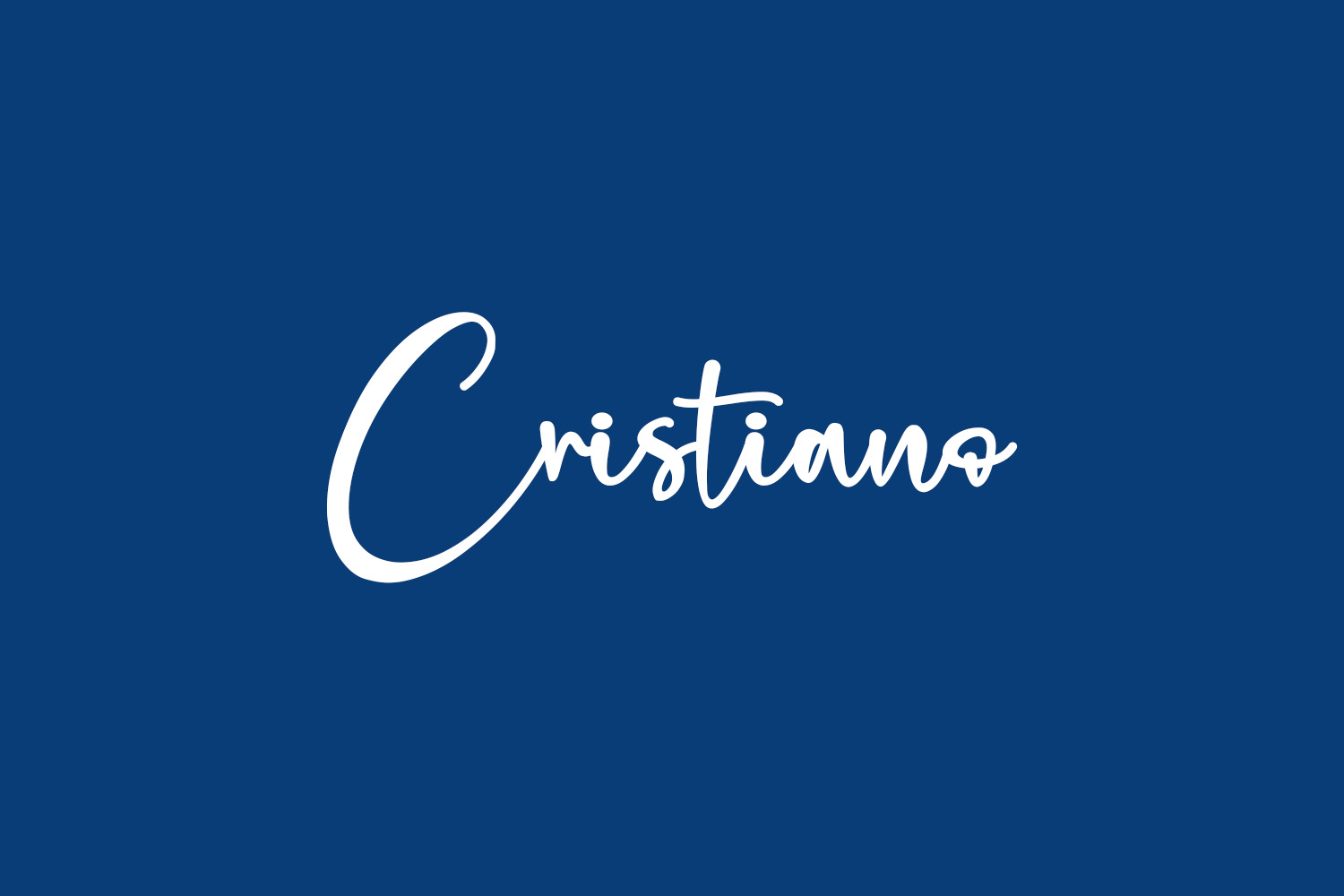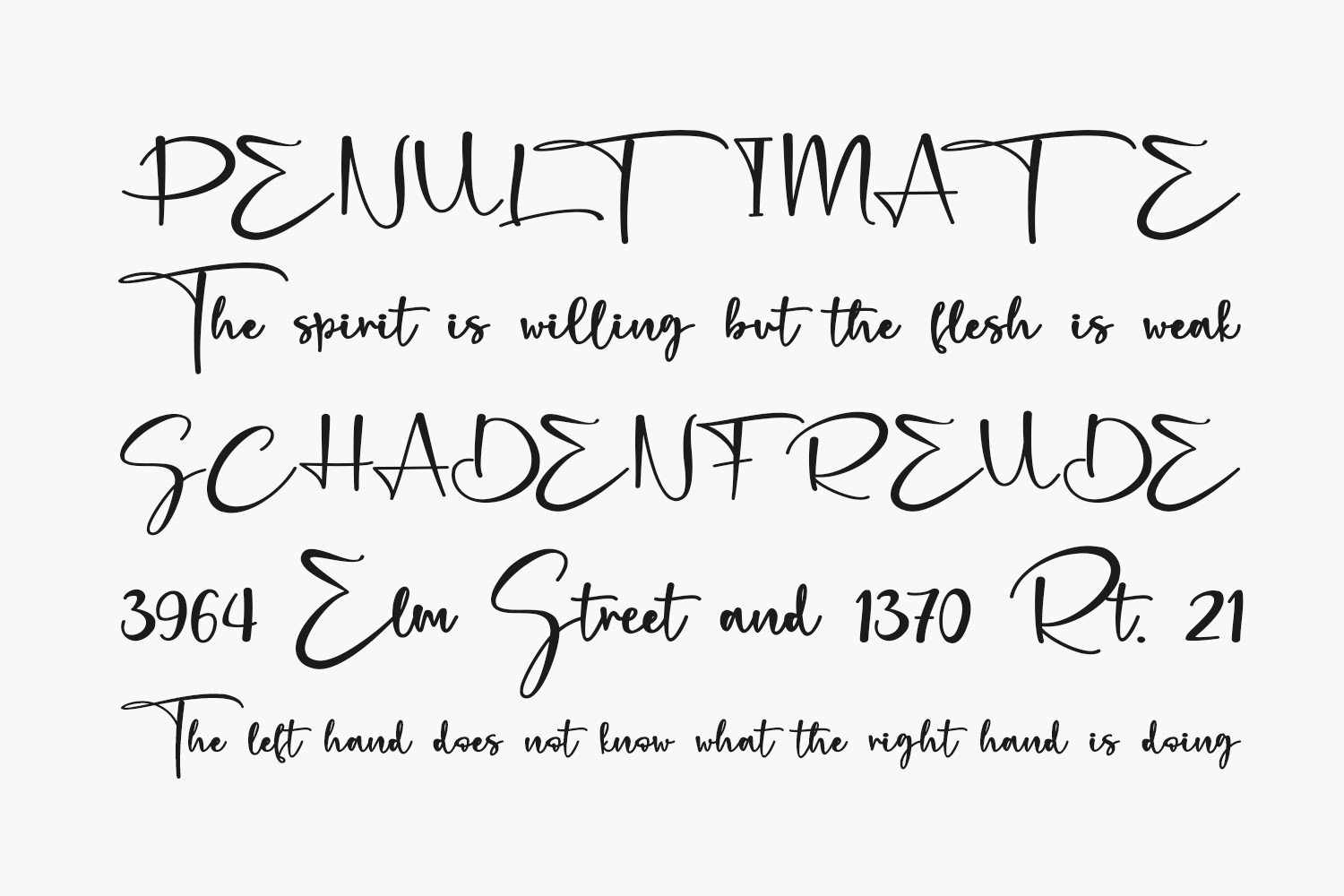
Cristiano Free Font is a delicate script font designed with an incredibly modern feel. It has beautiful and well balanced characters and as a result, it matches a wide pool of designs. Cristiano Free Font was designed by Stefani Letter and is free for personal use only. Please purchase the full version for commercial use.
Designed by Stefani Letter